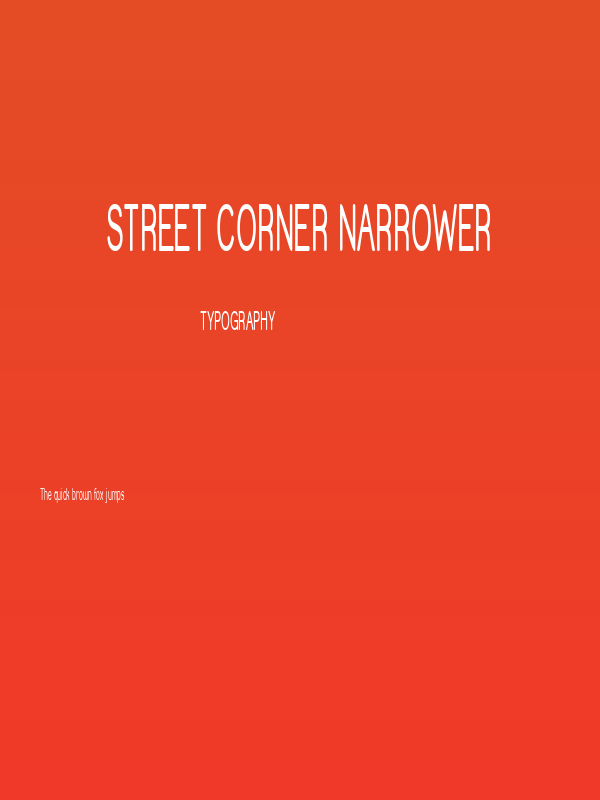
Street Corner Narrower Font
Street Corner Narrower Description
This font features a clean and modern sans-serif style with narrow letterforms that create a sleek and contemporary appearance. The characters are uniformly structured, with consistent stroke widths that contribute to a harmonious and balanced look. The font's design emphasizes clarity and readability, making it suitable for various applications. Its narrow width allows for efficient use of space, making it ideal for settings where space is limited. The font includes a full set of uppercase and lowercase letters, numerals, and a variety of punctuation marks and special characters, ensuring versatility in design projects.
| Proposed Projects | Ideal for branding, editorial design, web design, and signage where a modern and space-efficient typeface is needed. |